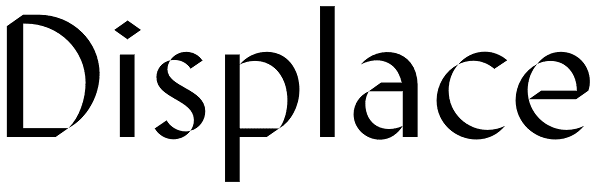
Displace
Displace — new look of classic. Humanistic sans-serif based on the calligraphic shapes with a pronounced handwriting contrast and open forms typeface. Displace have a natural thick-thin swelling & shrinking of the strokes as if it were draw...